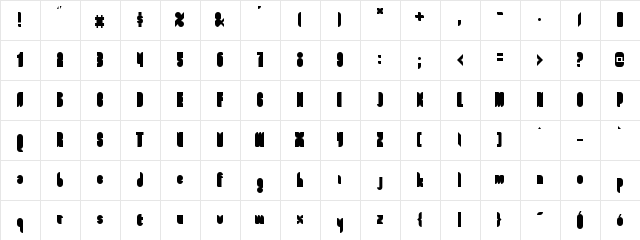
full font Regular
Design Context for full font Typeface
full font is a composed and adaptable typeface that performs quietly and consistently across a wide range of design contexts.